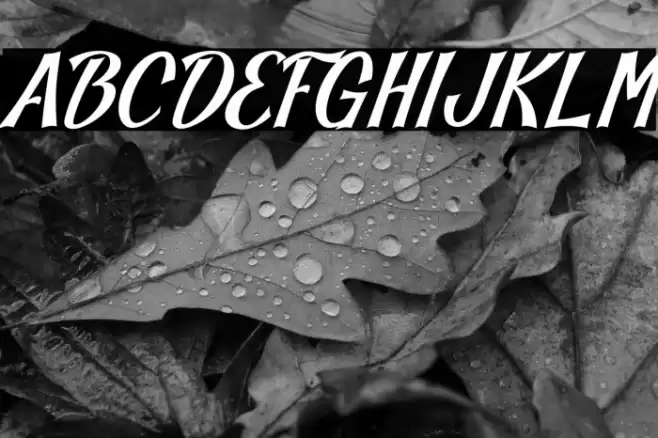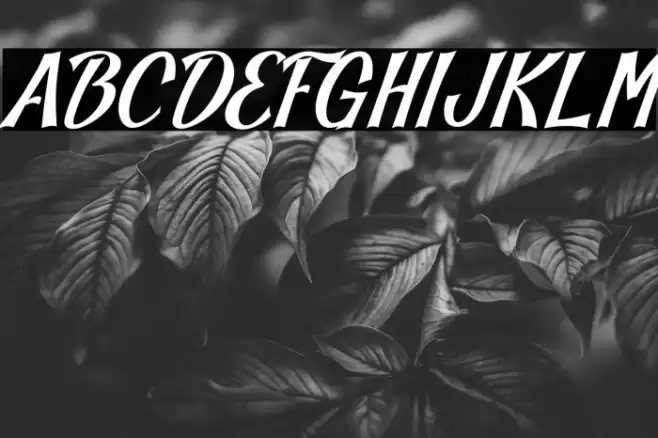
Blankeny-Script Font
Blankeny-Script Description
This font features a dynamic and flowing script style, characterized by its elegant and cursive letterforms. The uppercase letters are bold and slightly slanted, giving a sense of movement and grace. The lowercase letters maintain a consistent flow, with smooth curves and connections between characters. The overall appearance is both sophisticated and approachable, making it suitable for a variety of design projects. The font includes a full set of uppercase and lowercase letters, numerals, and a selection of special characters, ensuring versatility in its application.
A dynamic and elegant script font with flowing, cursive letterforms from Uncategorized fonts.
- Font: Blankeny-Script
- Proposed Projects: Ideal for wedding invitations, branding, logo design, and elegant packaging.
- Overall Style: Elegant
- Use Case: Logos, Invitations, Branding